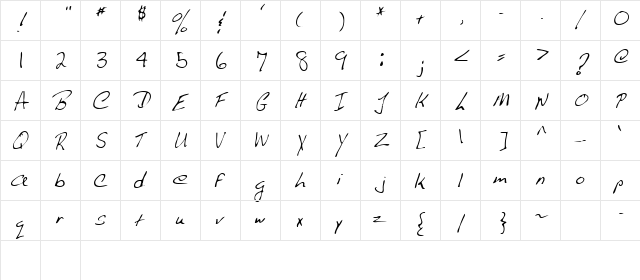
Umpque Regular
Design Context for Umpque Typeface
Umpque is a composed and adaptable typeface that performs quietly and consistently across a wide range of design contexts.